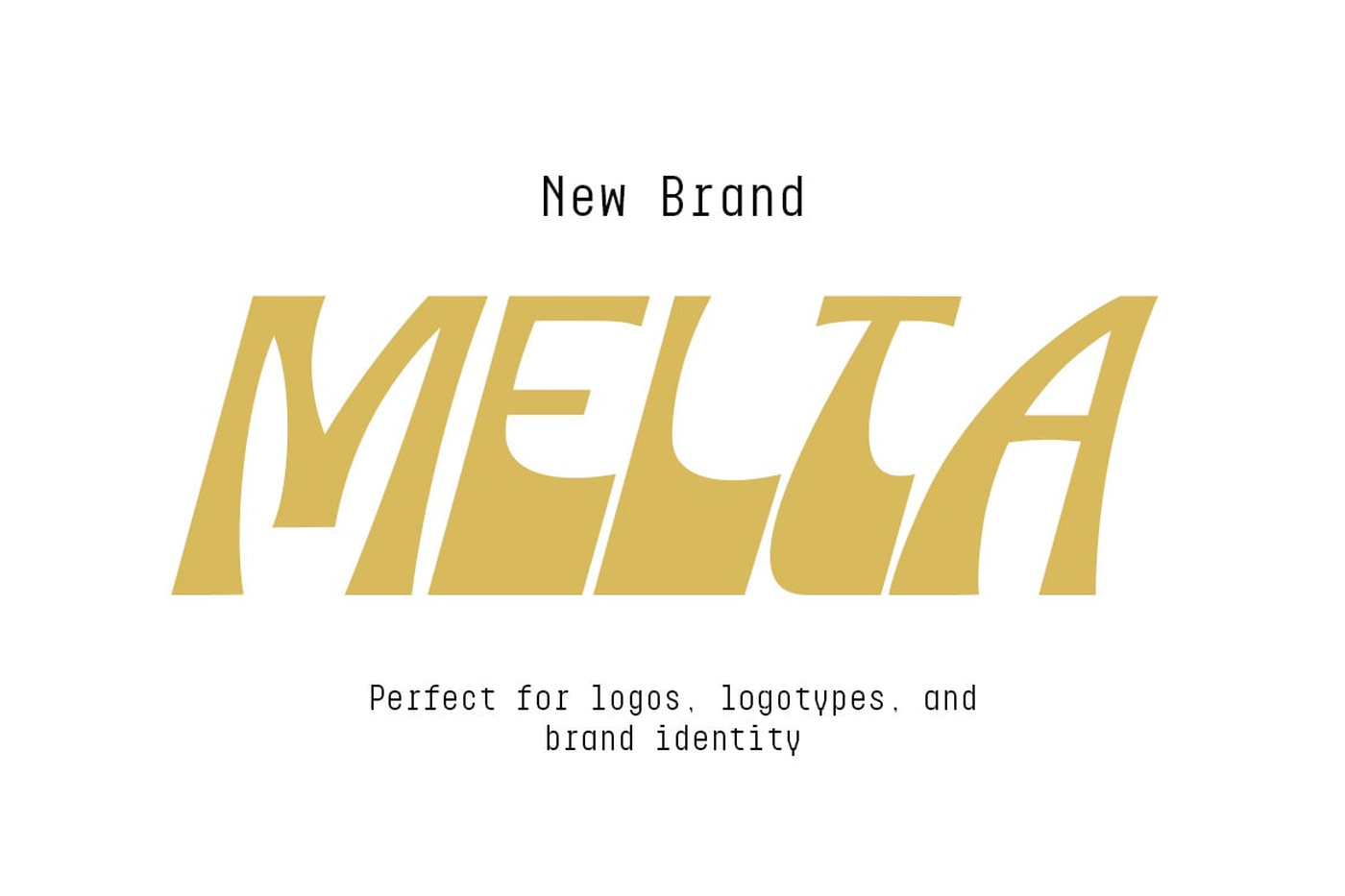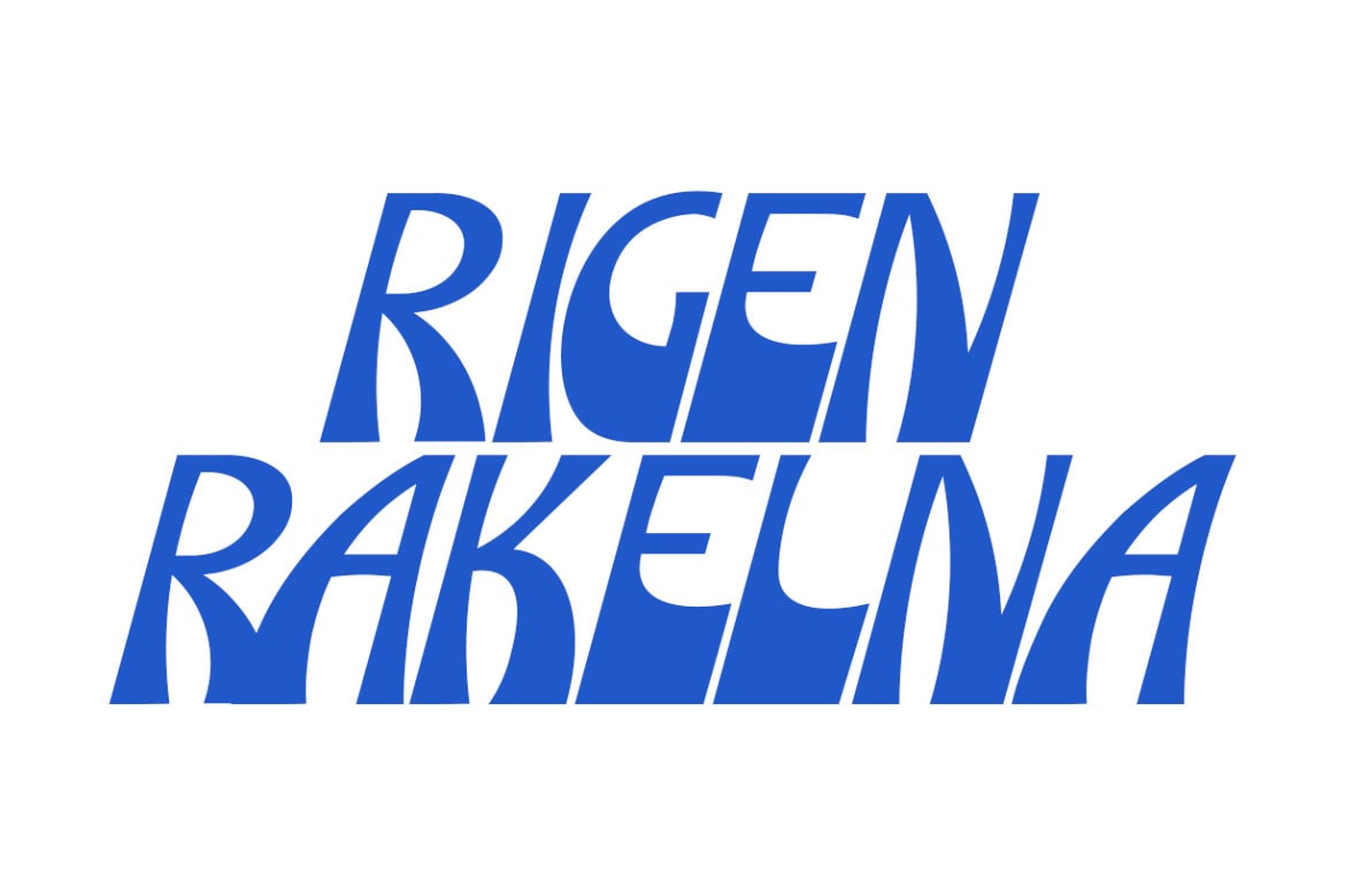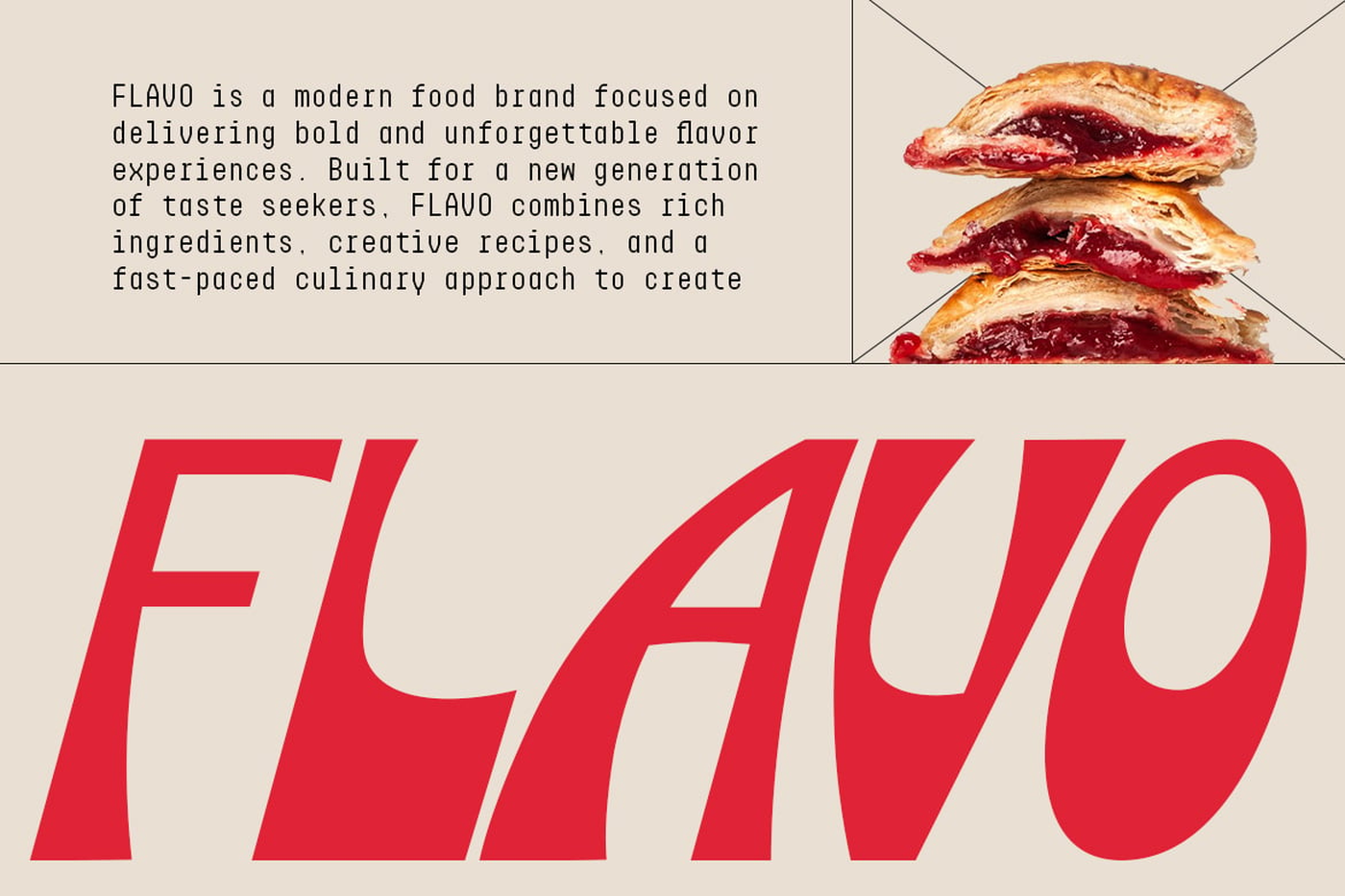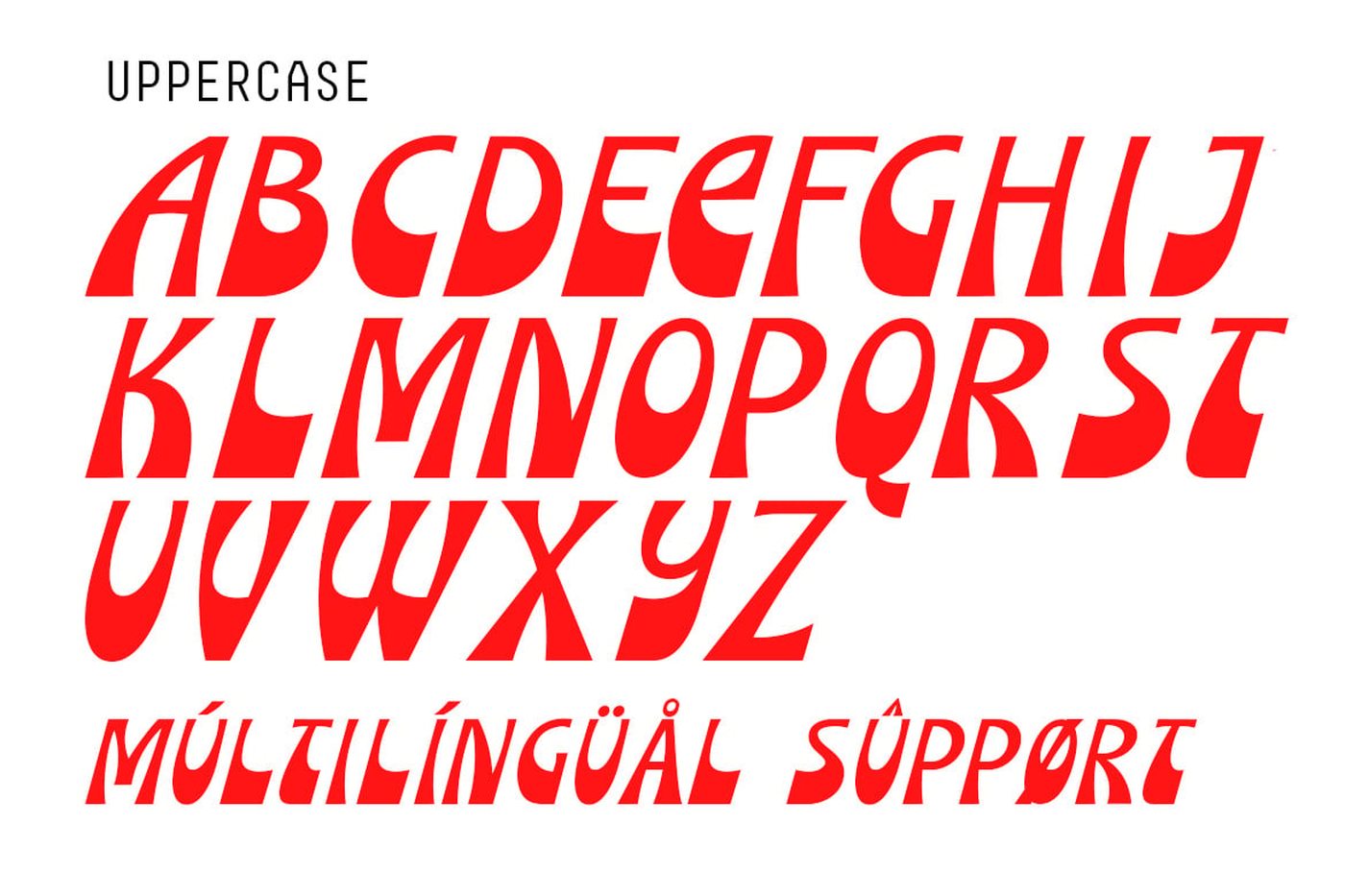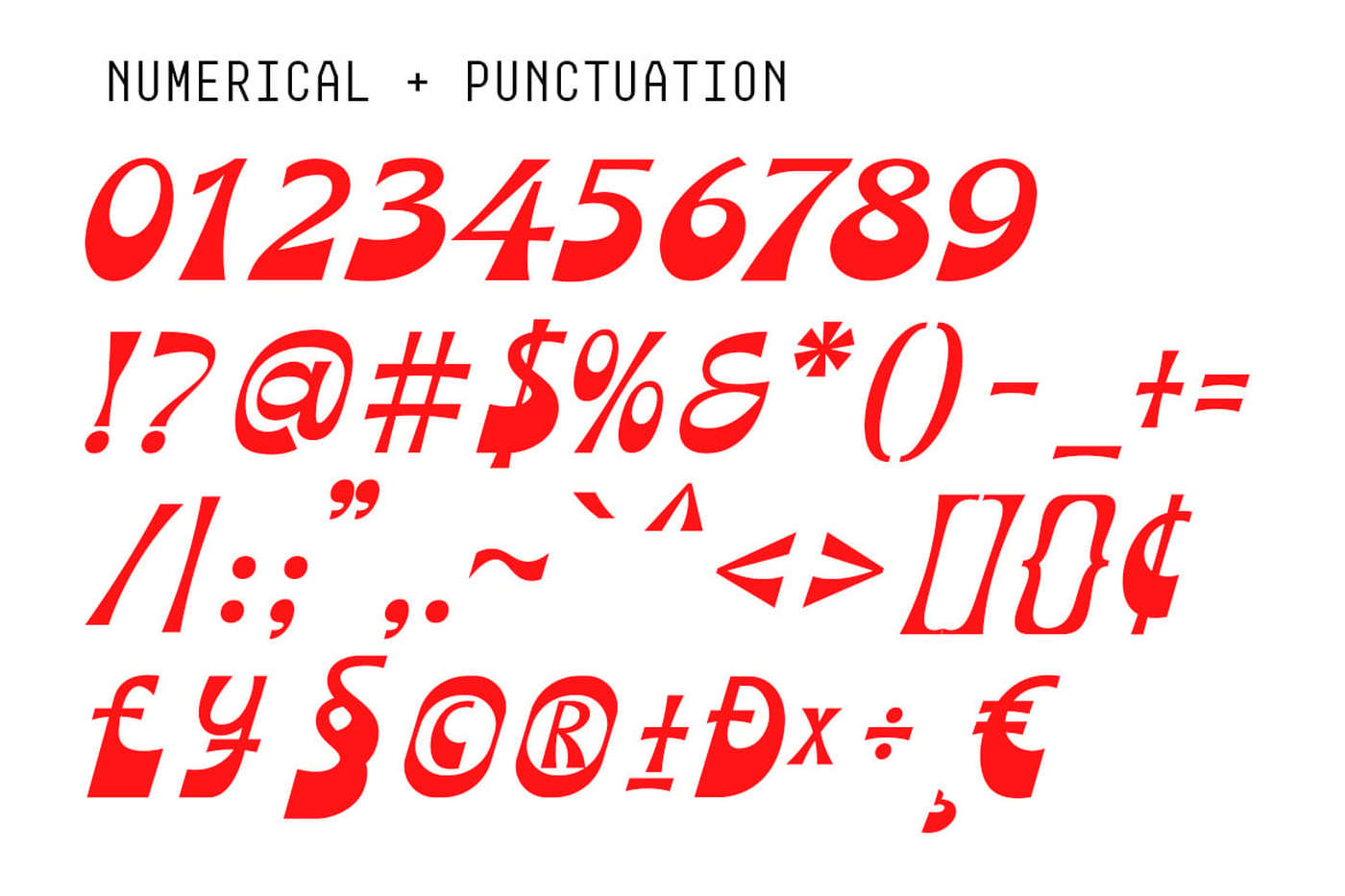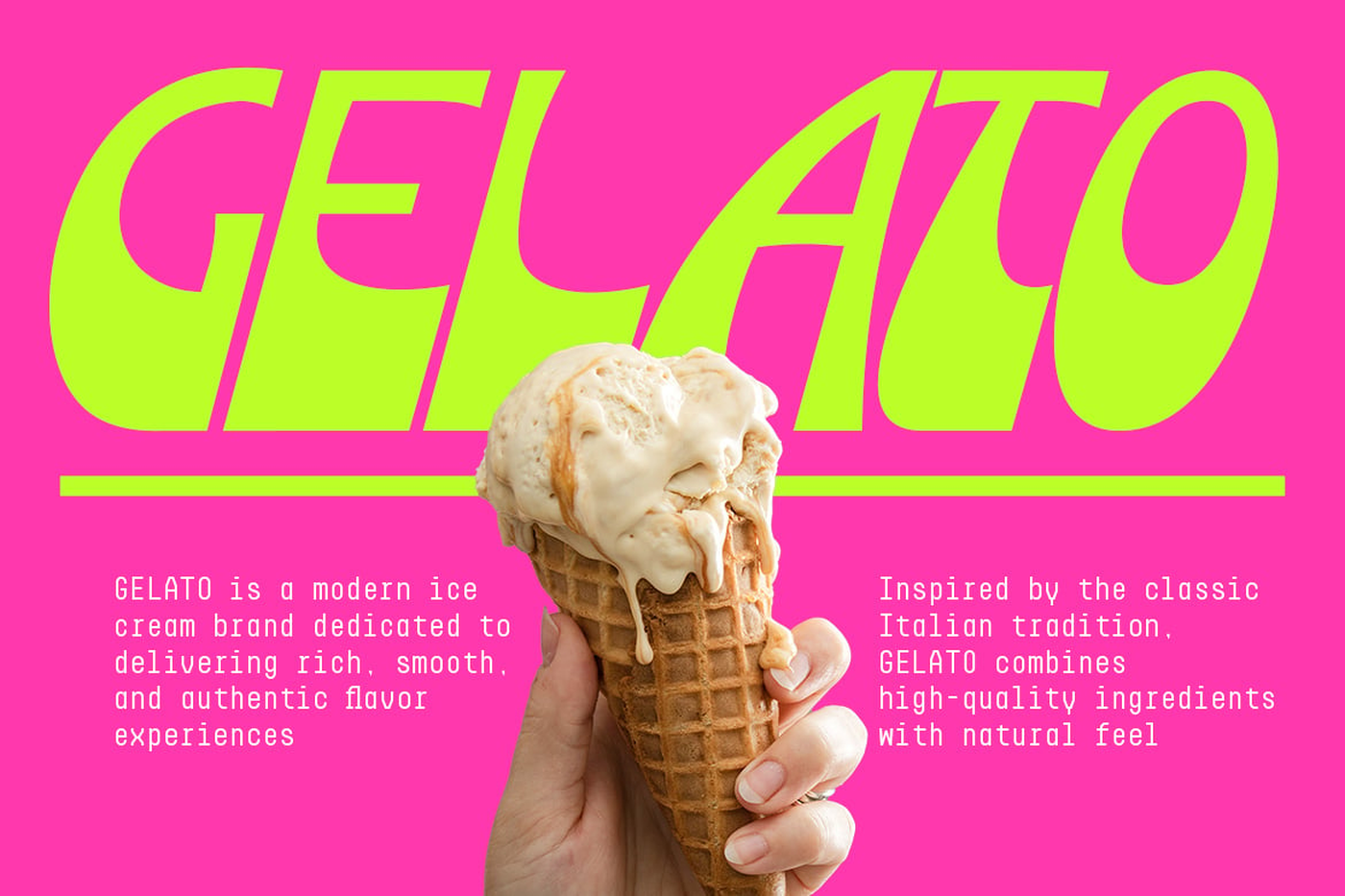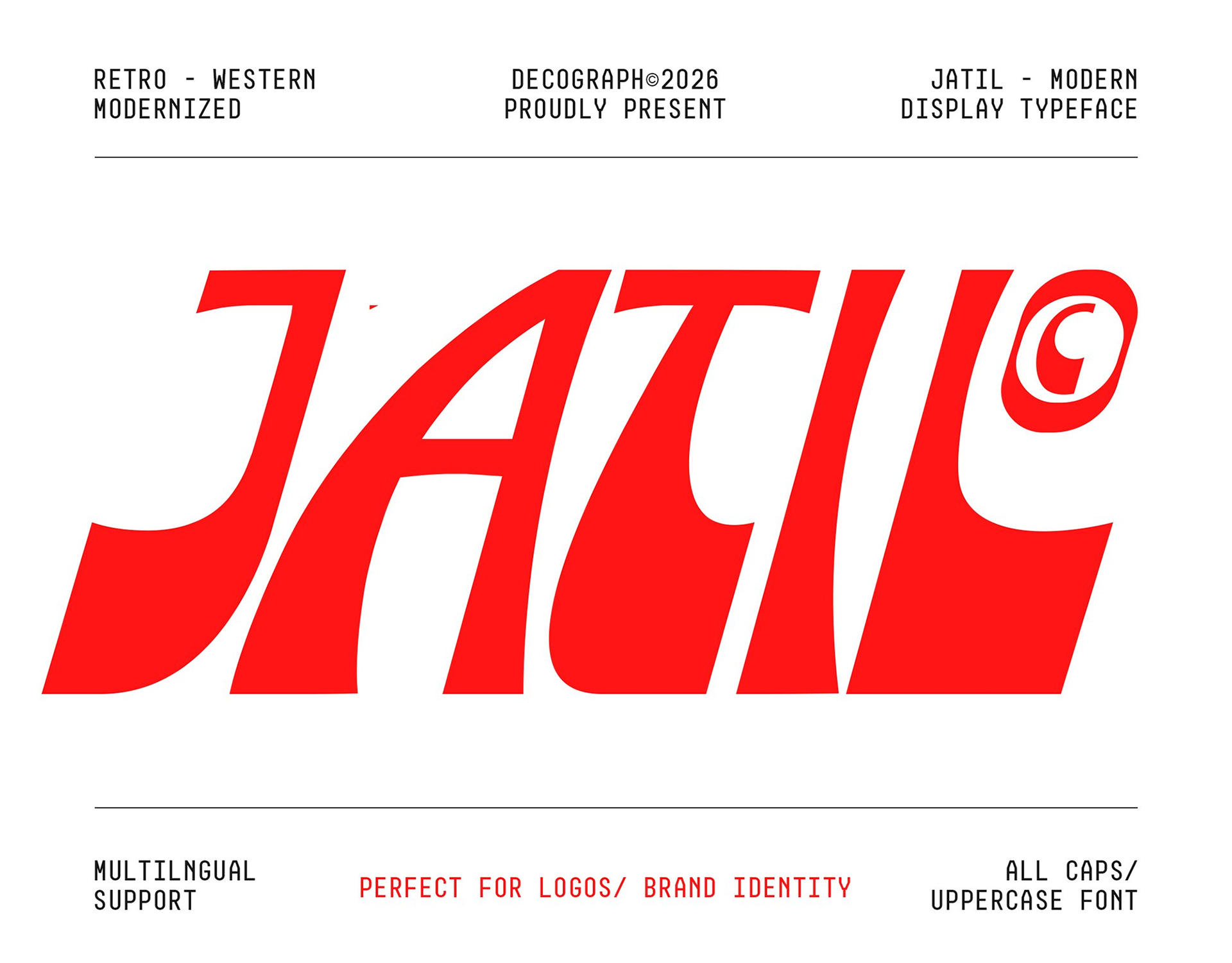
Jatil - Modern Western Retro Display Font
Jatil Modern Western Retro Display Font is a bold typeface that merges classic western influence with modern design precision. Its sharp curves and strong letterforms create a confident visual style that feels both vintage and contemporary. The dynamic shapes give it a distinctive personality perfect for standout display typography.